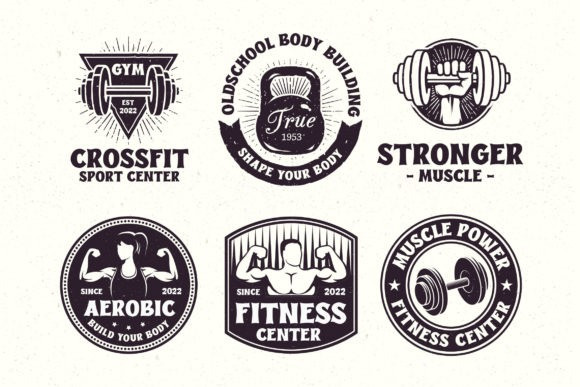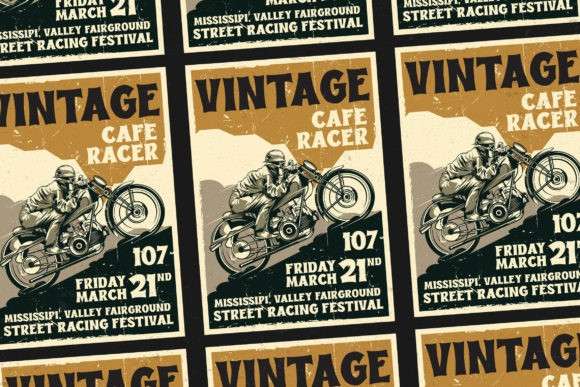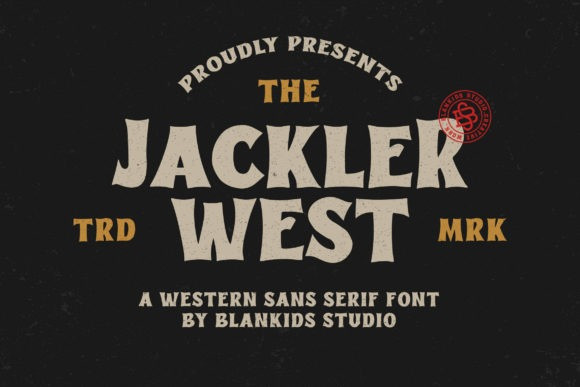
Jackler West Font
Jackler West Font is a Western Display Font inspired by vintage typography mixed with a playful style. This font is made with a good level of aesthetics, making this font suitable for a book cover, poster, packaging, merchandise, logotype, and much more.